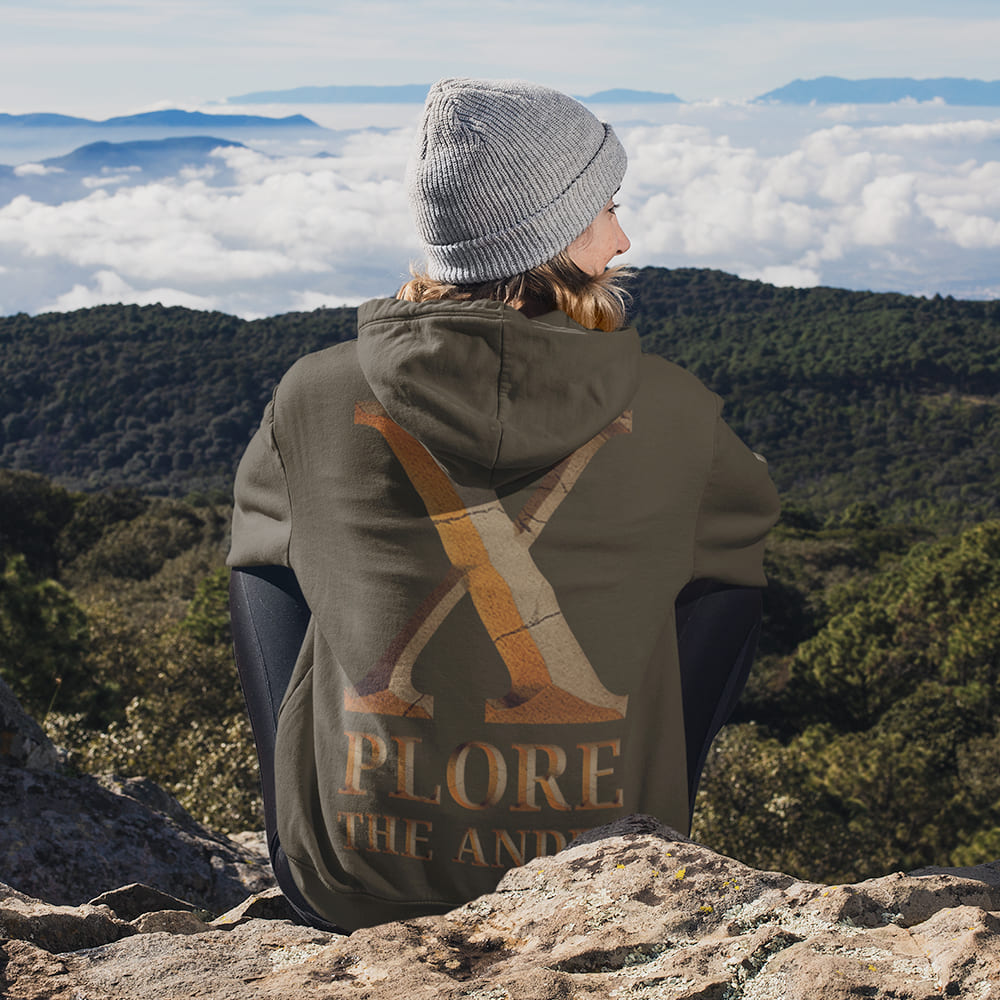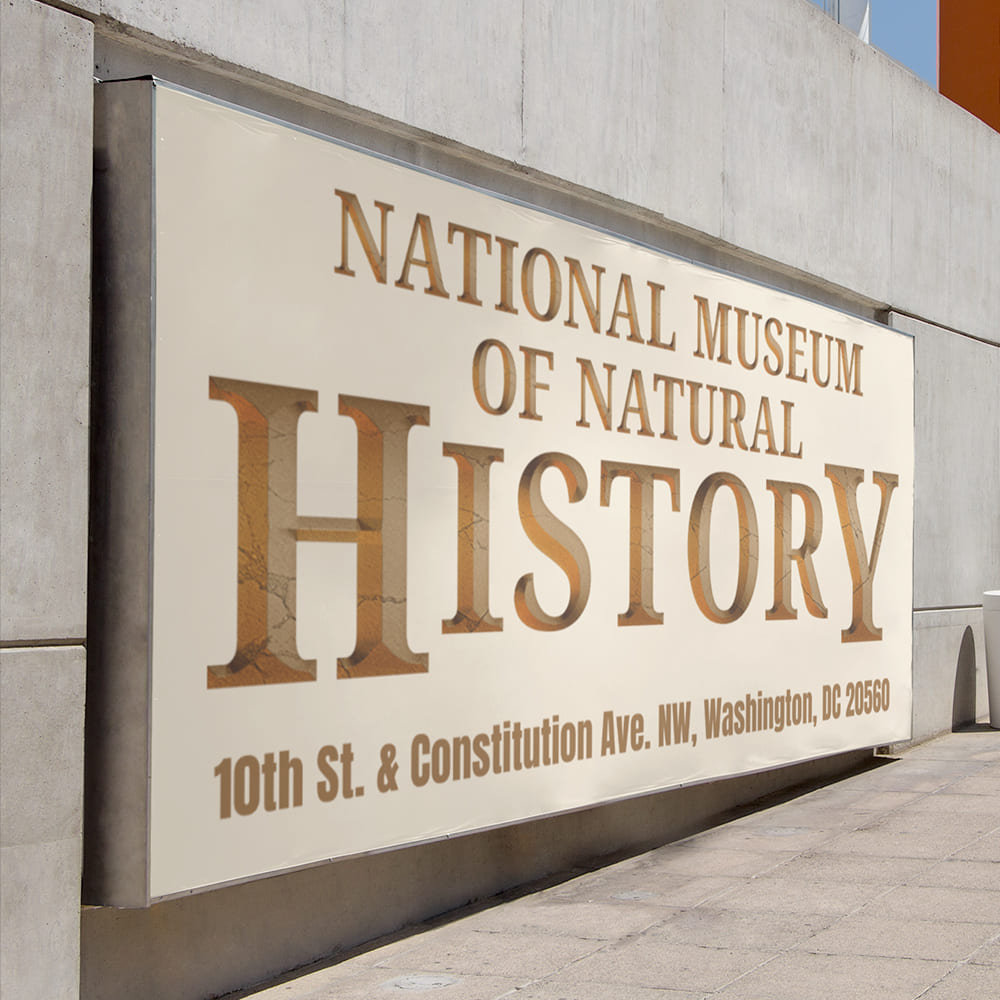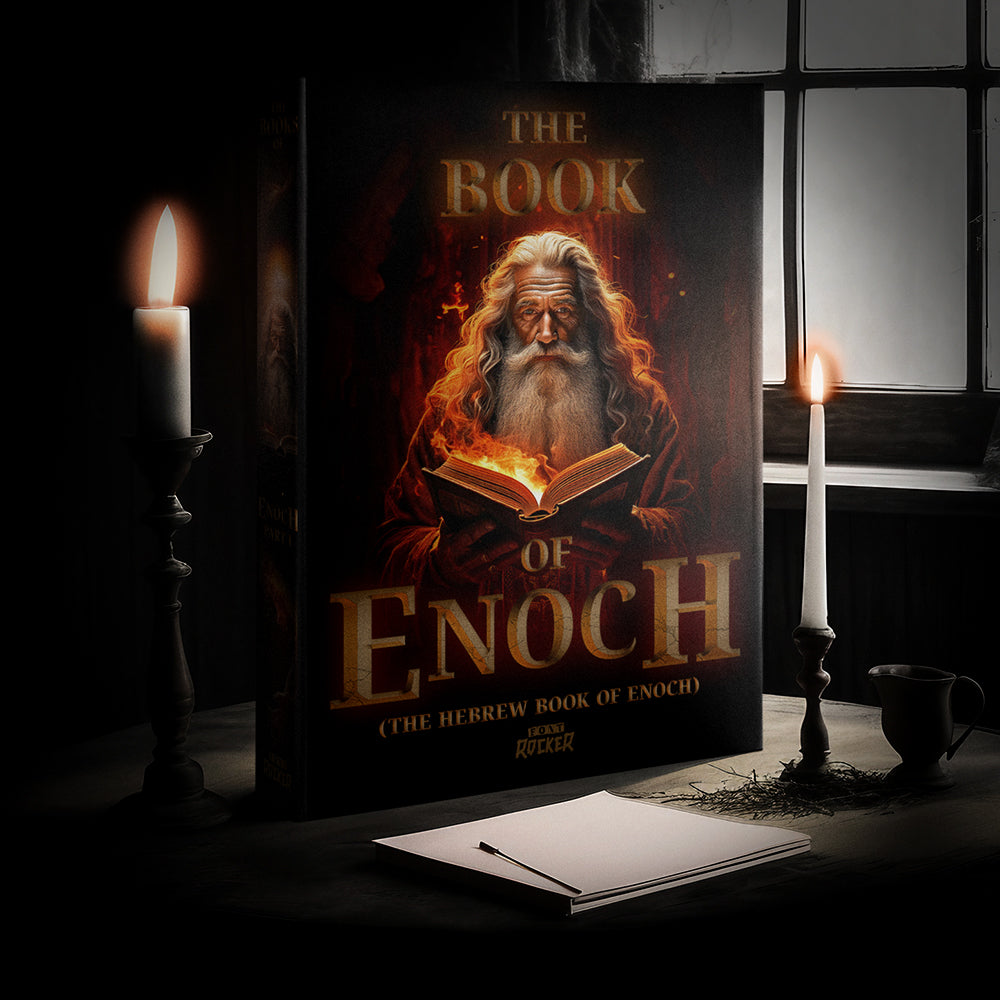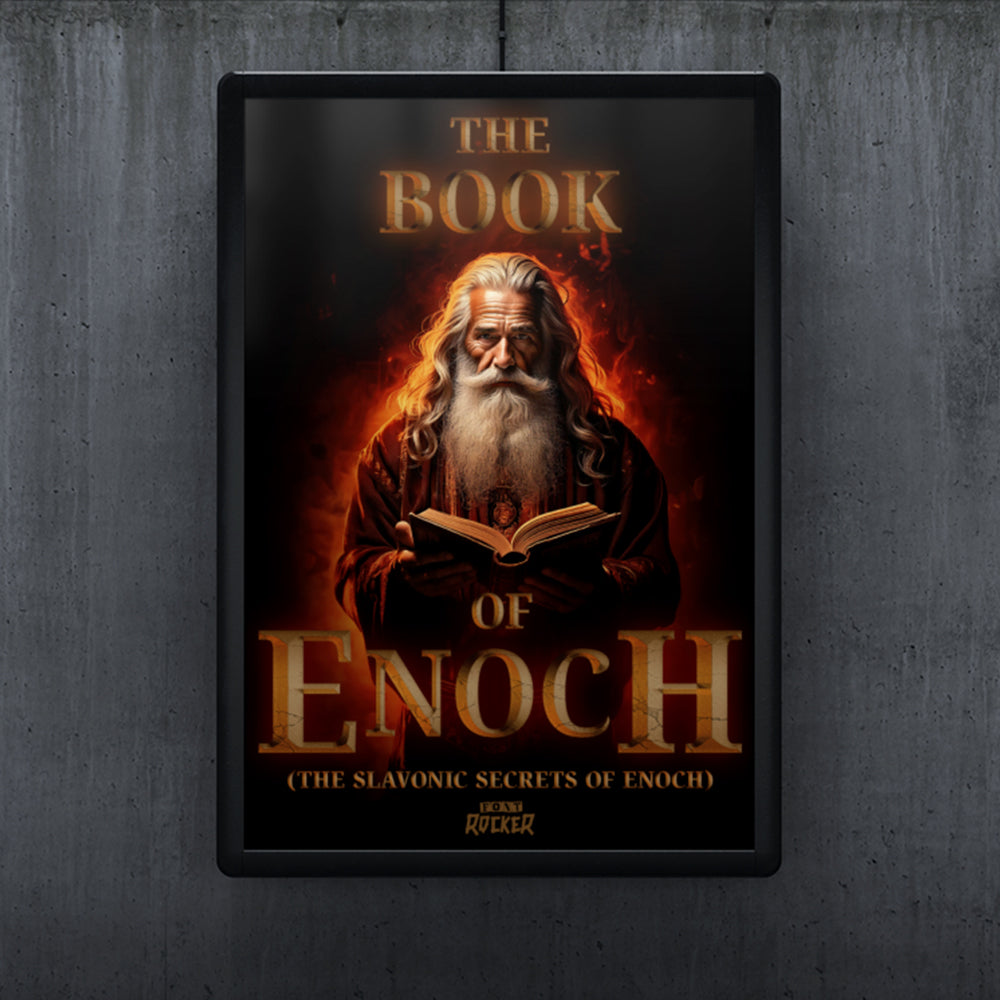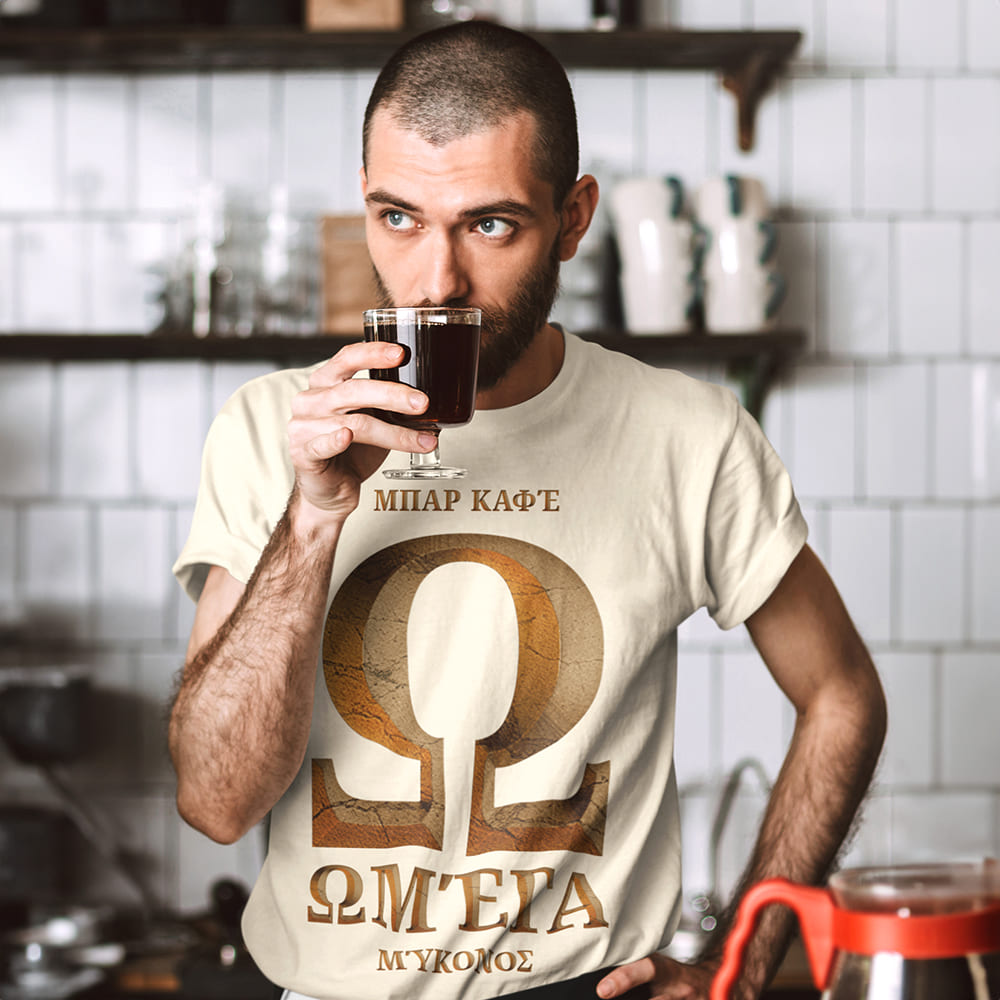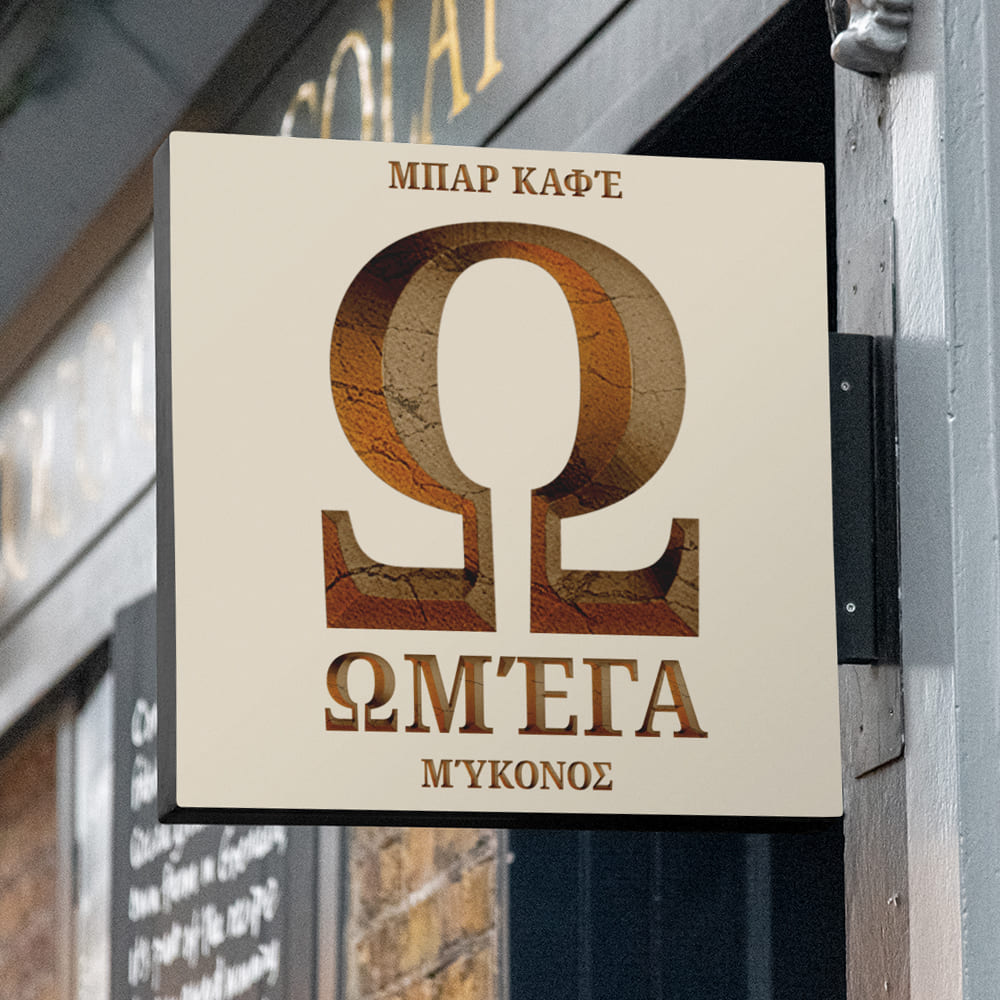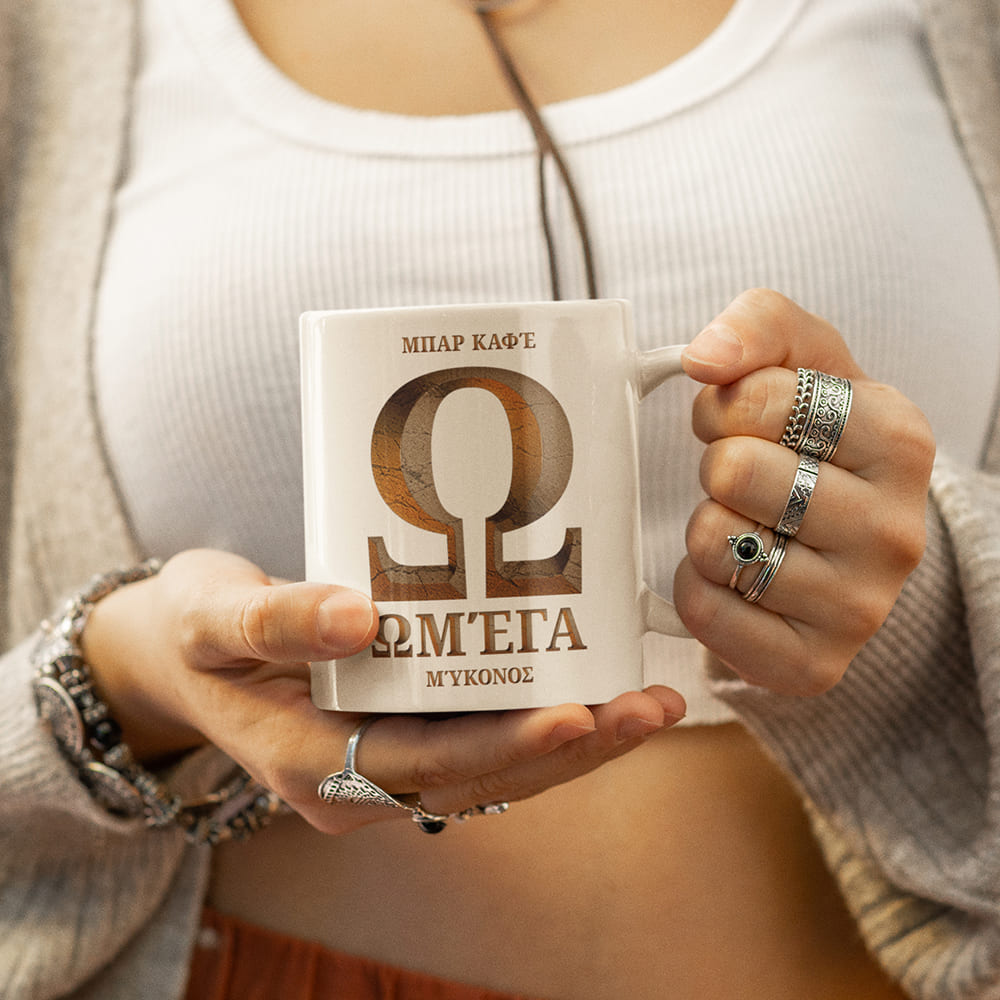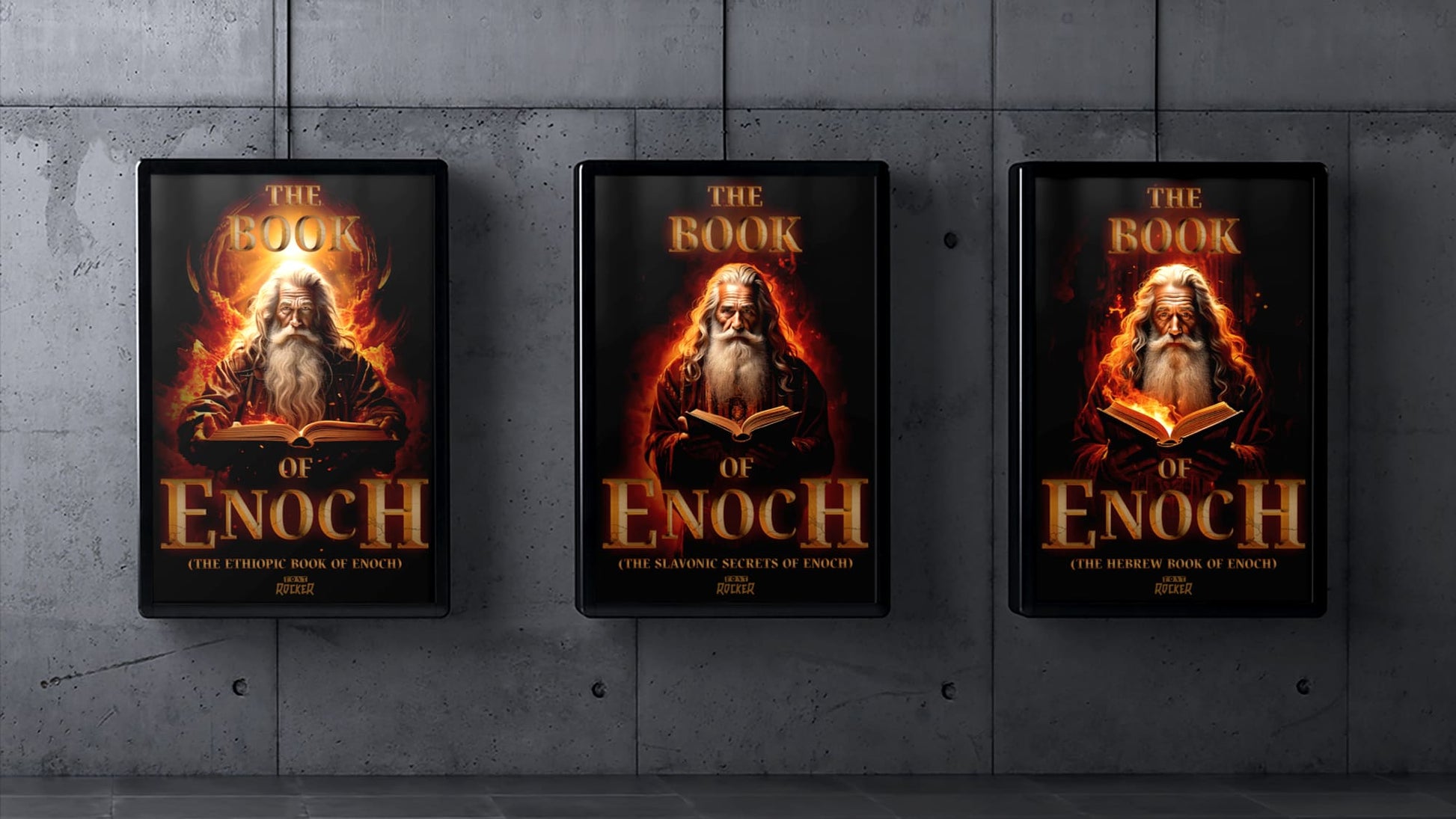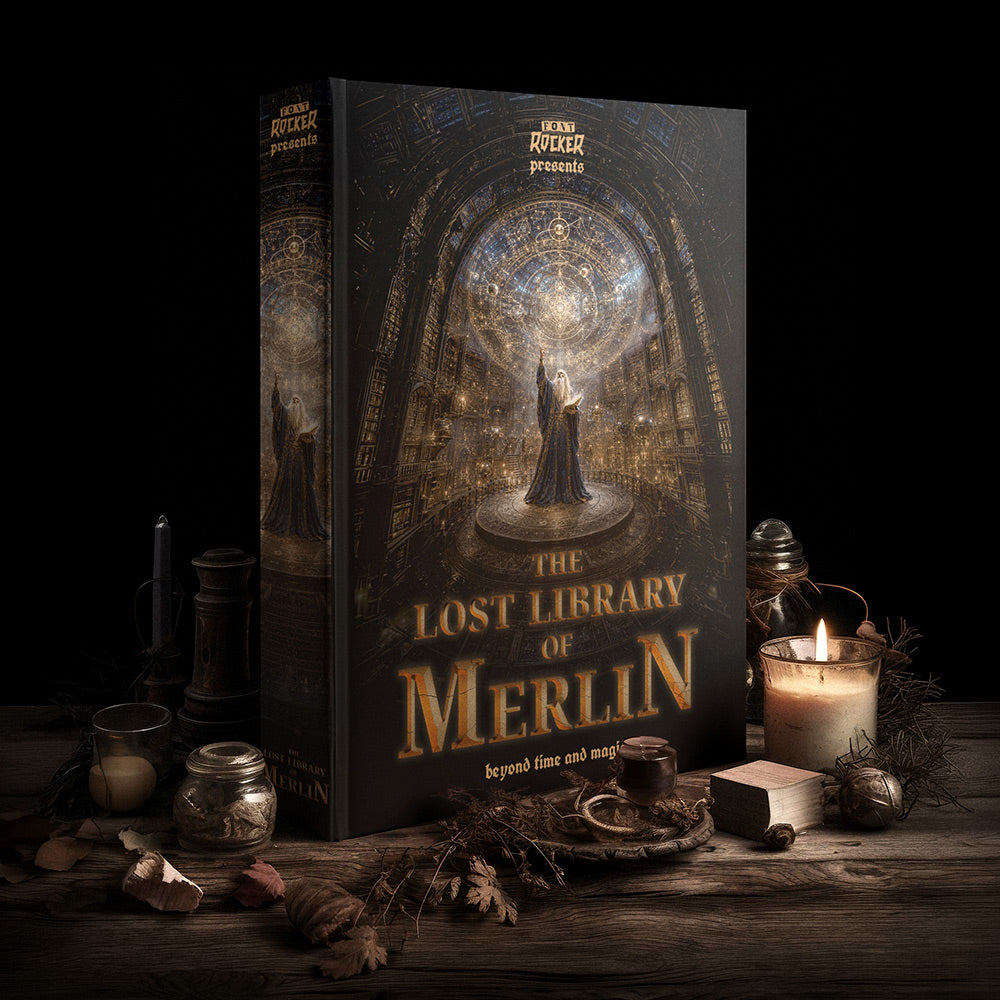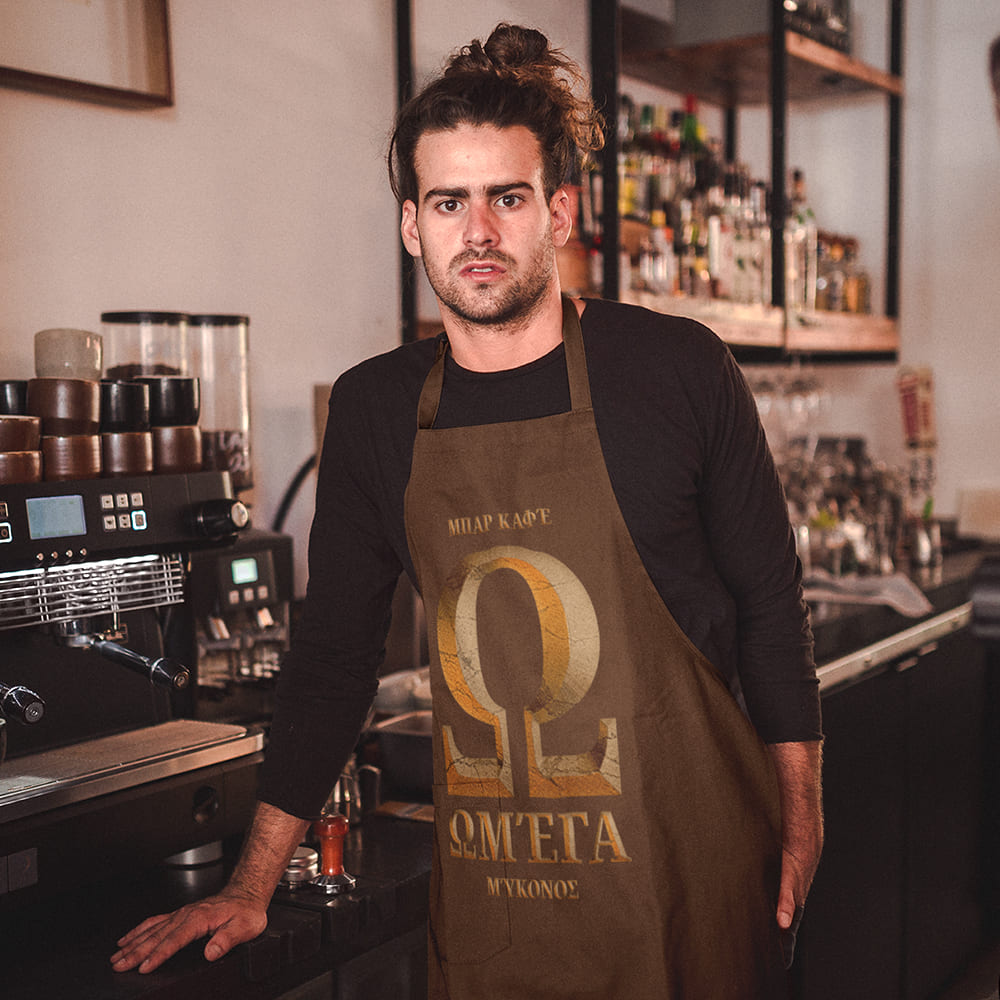
The Book Of Enoch Font
Mysterious, Powerful, Apocalyptic 📜📖✍️🌟
If fonts could hold ancient secrets, divine power, and echoes of lost ages, then the The Book of Enoch Font would be it. Rooted in biblical mysteries, forbidden scriptures, and apocalyptic visions, this font brings an aura of the sacred and the unknown into your design.
Legend has it that the Book of Enoch reveals knowledge hidden from mankind—tales of angels and the fallen, gateways to the heavens, and prophetic visions of the end times. This font captures that same mystical, otherworldly power. Every line, every curve carries the weight of an ancient revelation.
Why Choose The Book of Enoch Font?
🔹 Timeless & mythical – Inspired by ancient scrolls, occult symbols, and secret codes, blending the past with eternity in a single typeface.
🔹 Epic & full of meaning – Perfect for movie posters, book covers, games, metal band logos, or mystical branding projects that demand a divine or dark atmosphere.
🔹 Heavenly & ominous – Balancing between holy prophecies and fallen angels, between light and shadow, this font carries the legacy of forgotten scriptures.
Write History with the Power of the Apocalypse!
With The Book of Enoch Font, you create designs that feel like an ancient revelation. A font that is not just read—it is felt, worshipped, and feared.
🔹 Elevate your words. Awaken the legend. Choose The Book of Enoch Font.